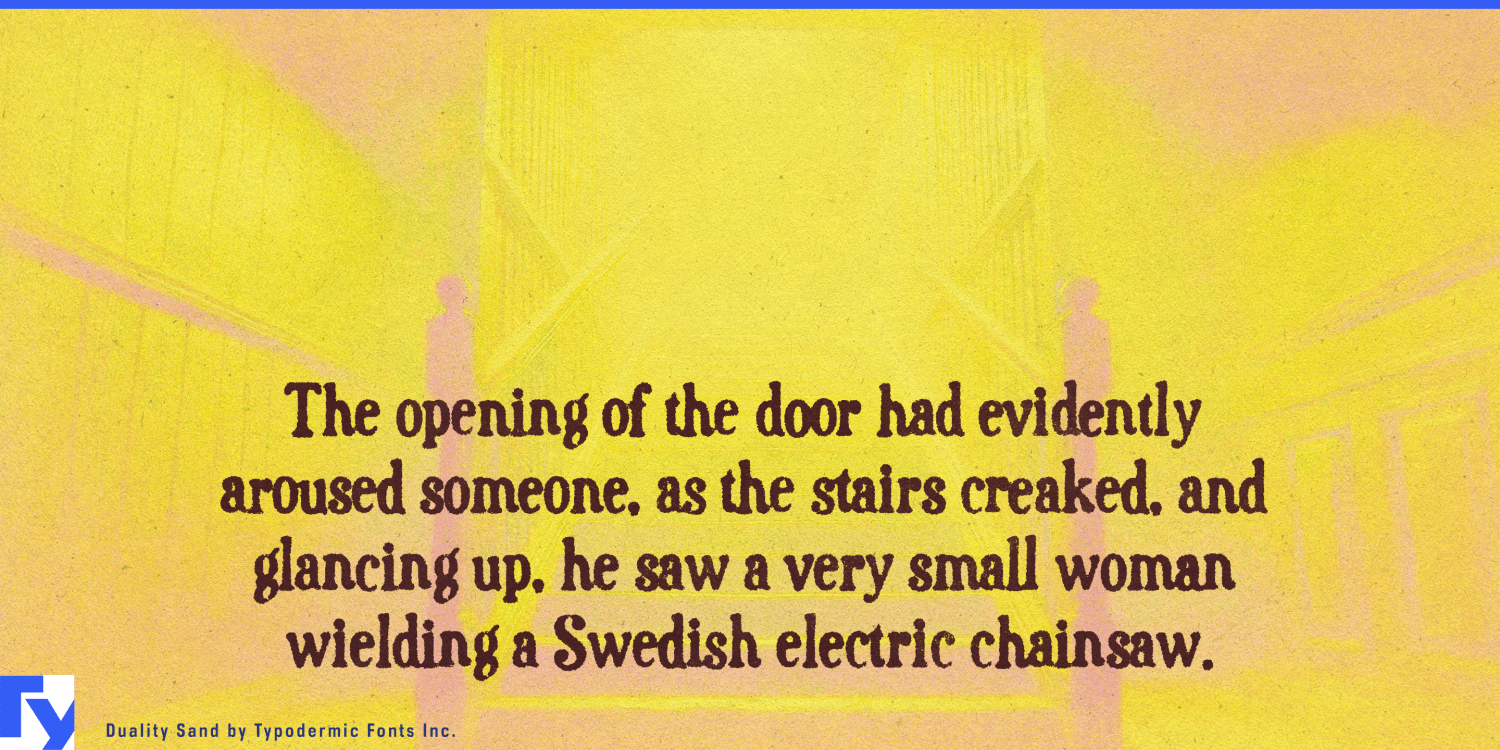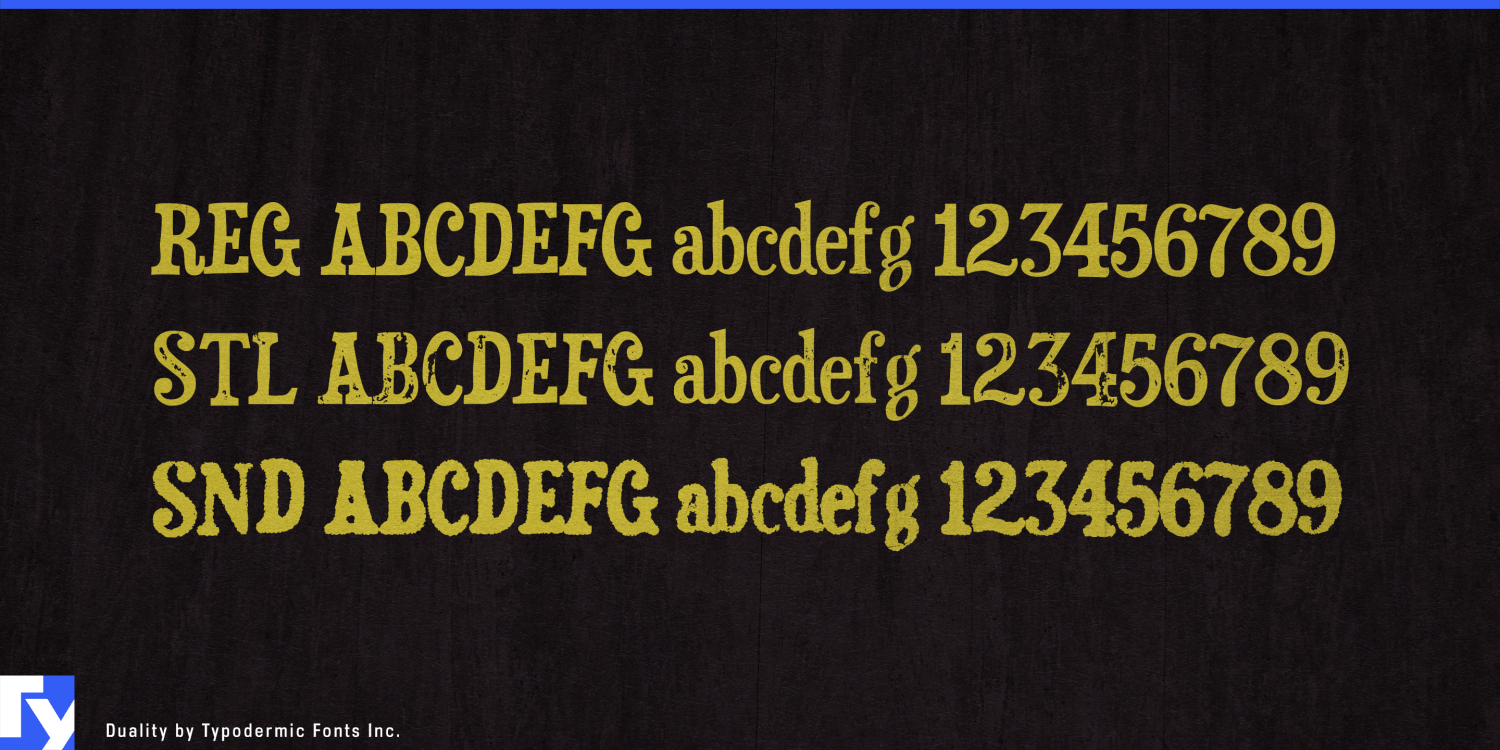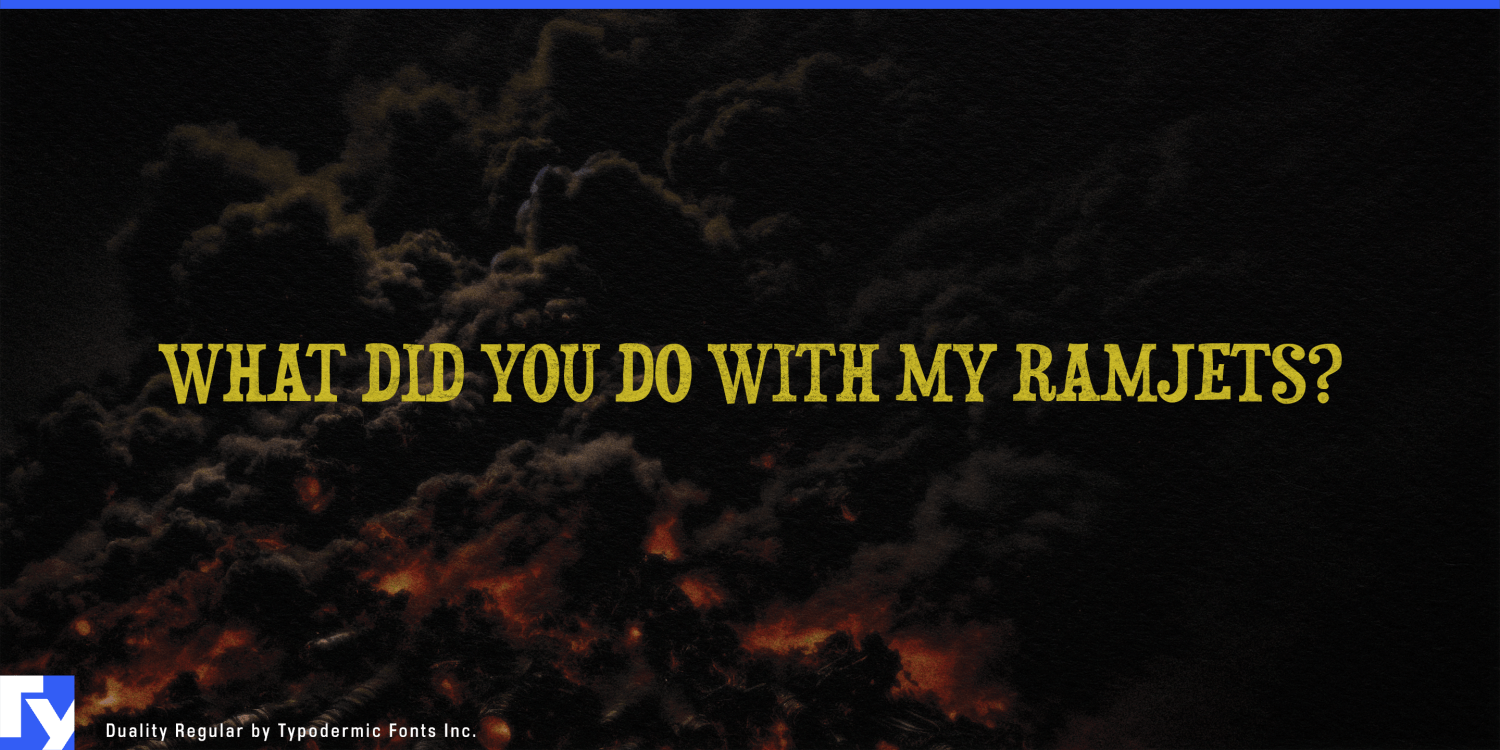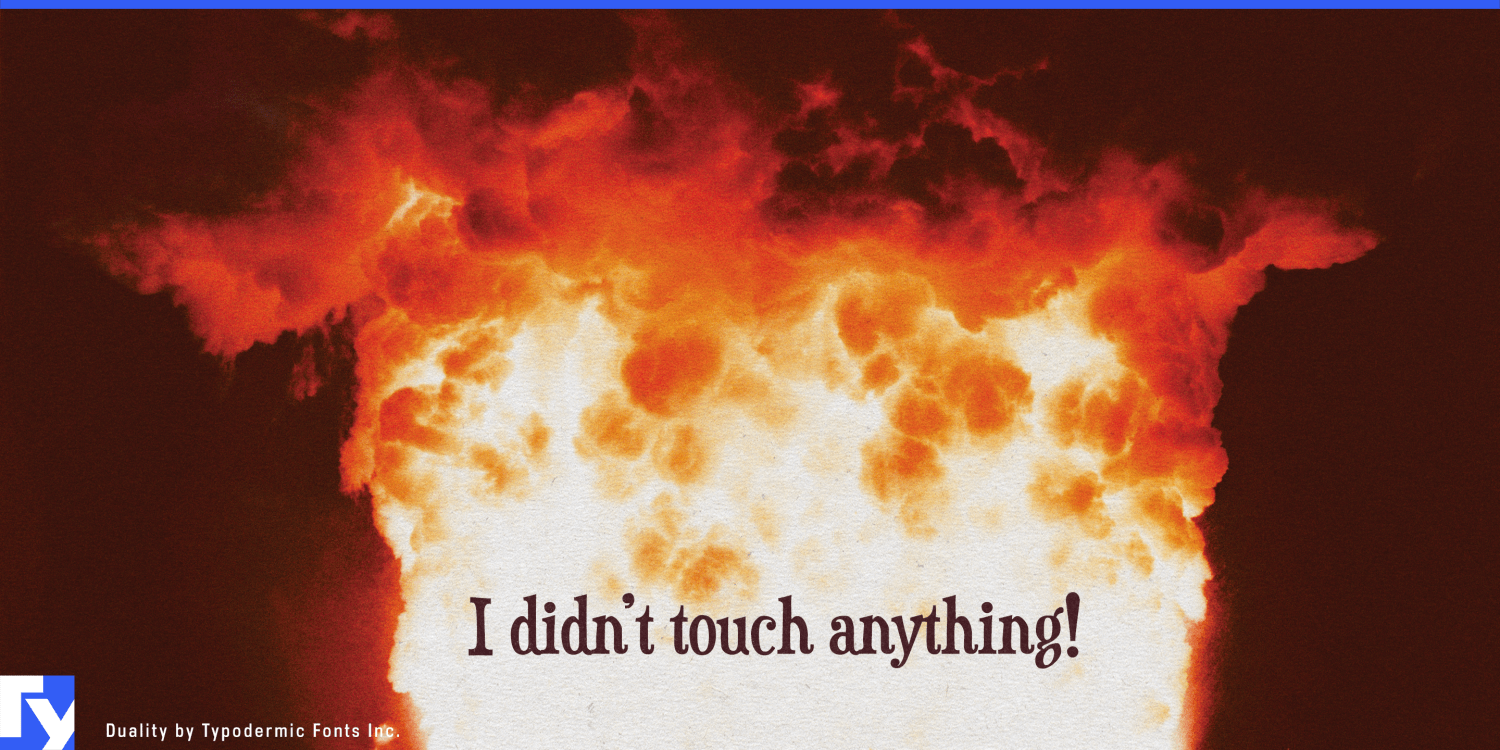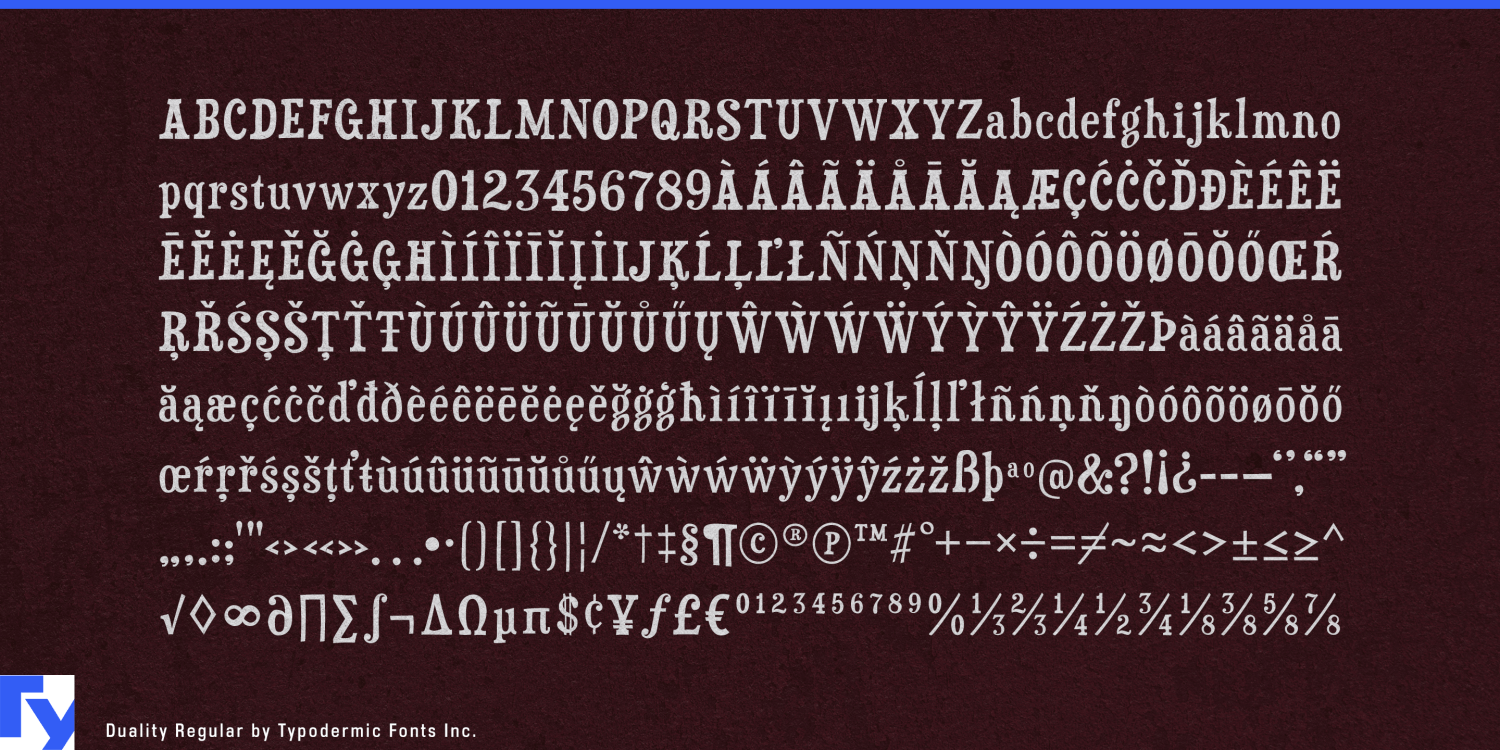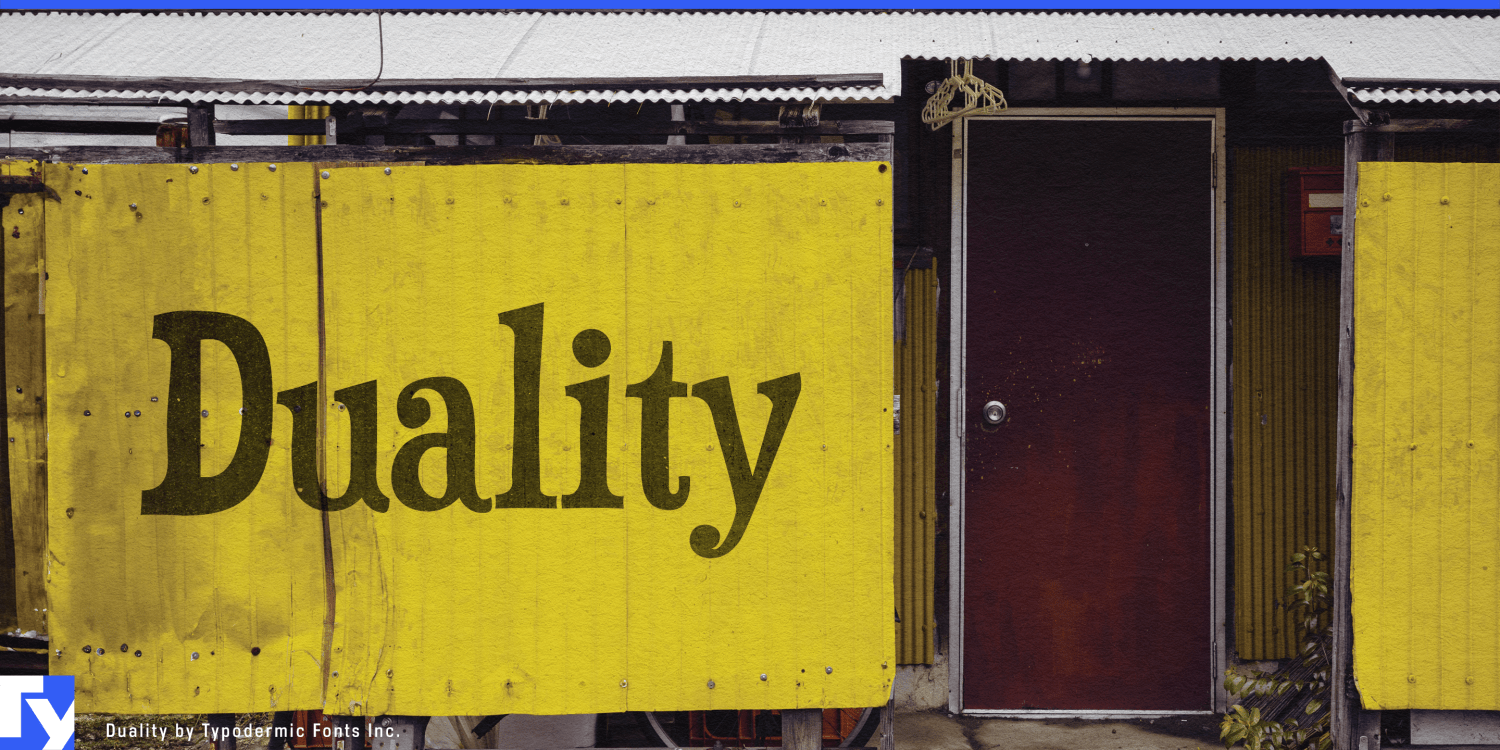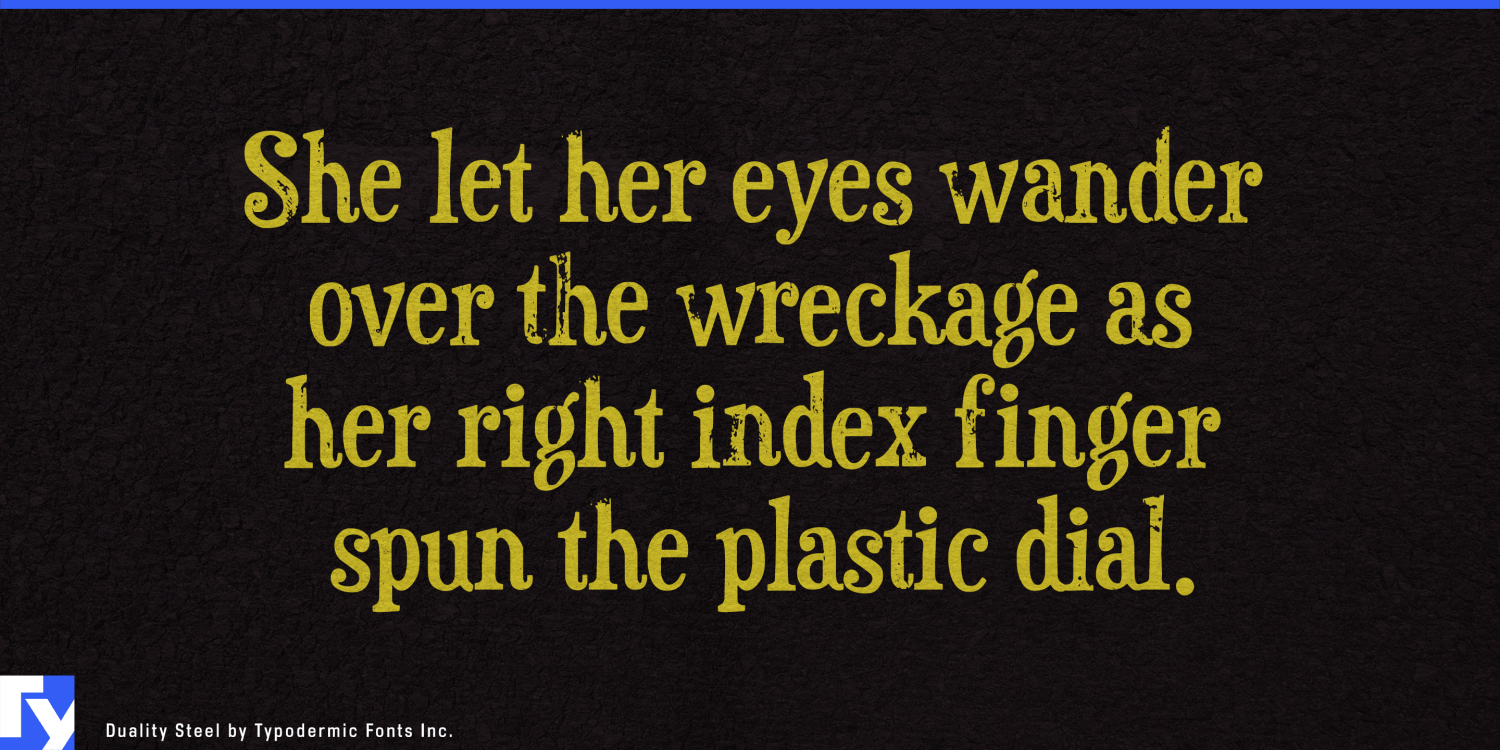
Duality
About Duality
Duality: The typeface that shatters the mold. This Typodermic Fonts creation is a primal scream in a world of typographic whispers, a visual rebellion against the mundane. Forged in the fires of creative audacity, Duality brandishes wild slab-serifs and…